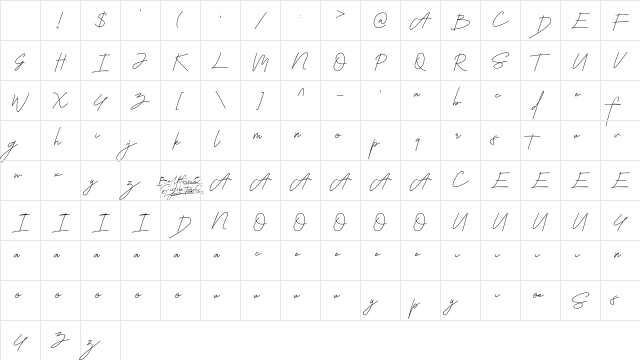
Complete Ballifornia Signature Personal Use Only Signature-Regular-Personal-Use-Only glyph index. Displaying only characters natively supported by Ballifornia Signature Personal Use Only Signature-Regular-Personal-Use-Only font.
Ballifornia Signature Personal Use Only is a composed and adaptable typeface that performs quietly and consistently across a wide range of design contexts.